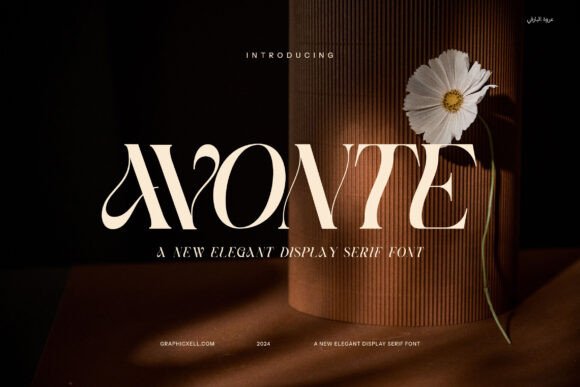
The Elusive Font: A Designer’s Quest for Luxury and Elegance
I still remember the countless hours I spent searching for the perfect font for a luxury branding project. My client wanted something that exuded sophistication, elegance, and refinement. I scoured the internet, tried out numerous fonts, but nothing seemed to fit the bill. That was until I stumbled upon the Avonte Elegant Serif Font. ✨
It was love at first sight! The way it effortlessly blended classic vintage charm with modern style, making it perfect for a wide range of design needs. From that moment on, I was hooked. In this article, I’ll share my experience with Avonte, its features, and how to make the most of it in various design projects.
Avonte Elegant Serif Font: A Comprehensive Review
• ✨ Sophisticated and timeless design: Avonte’s carefully crafted letterforms make it stand out in both digital and print formats.
• ✅ Excellent readability: Its clean lines and graceful curves ensure that your message is conveyed clearly and effectively.
• ✅ Versatility: Avonte is suitable for a wide range of design projects, from luxury branding to marketing materials.
• ✨ Unique personality: Avonte’s bold character gives it an unmistakable presence that sets it apart from other fonts.
While Avonte is an exceptional font, there are a few minor quirks to be aware of: 🤔
• ⚠️ Limited use of ligatures: Some users may find the limited use of ligatures to be a drawback.
• ⚠️ Requires careful kerning: As with any serif font, kerning is crucial to ensure optimal readability.
The Designer Inspiration Behind Avonte
Avonte’s design inspiration comes from the world of luxury and elegance. Imagine a high-end fashion boutique, a luxurious hotel, or a fine dining restaurant. The font’s creator aimed to capture the essence of refinement and sophistication, making it perfect for designers seeking to add a touch of luxury to their projects.
Q: What is Avonte Elegant Serif Font best suited for?
A: Avonte is ideal for luxury branding, fashion boutiques, high-end restaurants, and premium products, as well as a wide range of design projects, including websites, magazines, brochures, product packaging, and advertisements.
Q: Is Avonte suitable for digital and print formats?
A: Yes, Avonte’s clean lines and graceful curves ensure excellent readability in both digital and print formats.
Q: Can I use Avonte with OpenType features?
A: Yes, Avonte supports OpenType features, such as Stylistic Alternates and Glyphs, which can be used to add visual interest to your design.